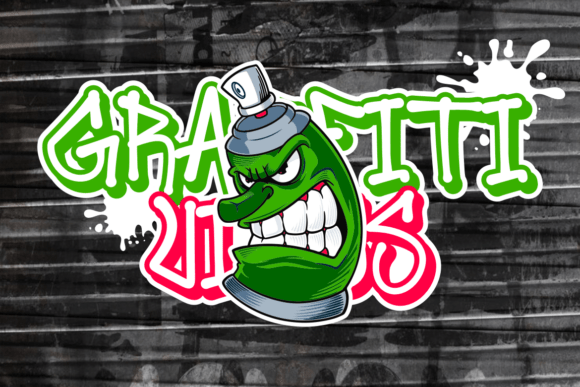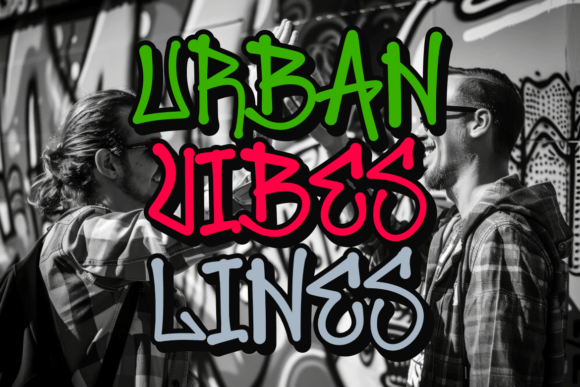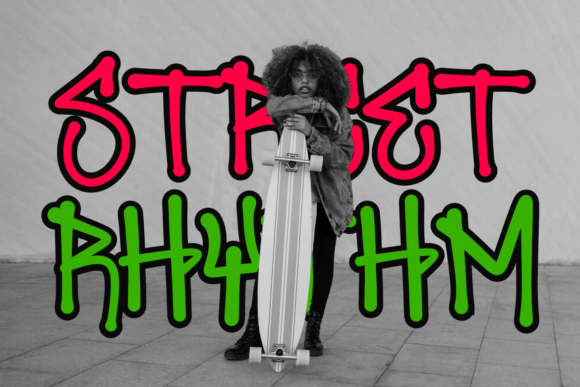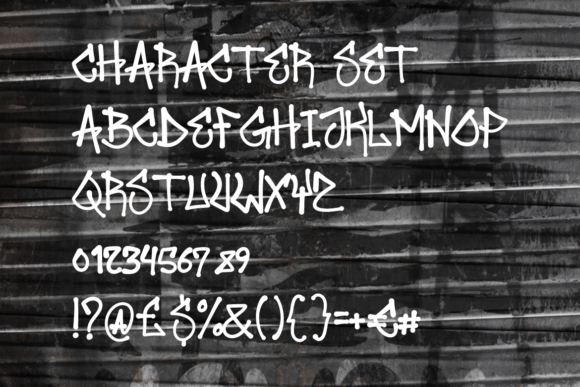
Introduction to Monovibe Graffiti Font Font
Fonts play a crucial role in design, and the Monovibe Graffiti Font font is a typeface that brings both character and versatility to any project. Whether you’re working on a branding project, a website, or a print design, the Monovibe Graffiti Font font offers a unique style that can elevate your work.
Dive into the pulse of the streets with Monovibe Graffiti, a bold monoline graffiti font that captures the energy, edge, and rebellion of urban culture.
Designed with authentic street art flair, Monovibe features hand-drawn letterforms that blend smooth curves and sharp tags, creating a raw and expressive personality Each glyph is crafted with an outline-style structure, resembling spray-paint strokes with consistent monoline width, giving it a playful yet daring attitude.
The Monovibe Graffiti Font font is more than just a typeface – it’s a design tool that helps you communicate your message with style and clarity. Its unique character set and versatile design make it suitable for a wide range of applications, from elegant invitations to bold headlines.
With its carefully crafted letterforms and balanced proportions, the Monovibe Graffiti Font font ensures readability and visual appeal across all mediums.
What makes Monovibe Graffiti Font font special?
The Monovibe Graffiti Font font stands out with its unique design, exceptional readability, and versatility across various design applications.